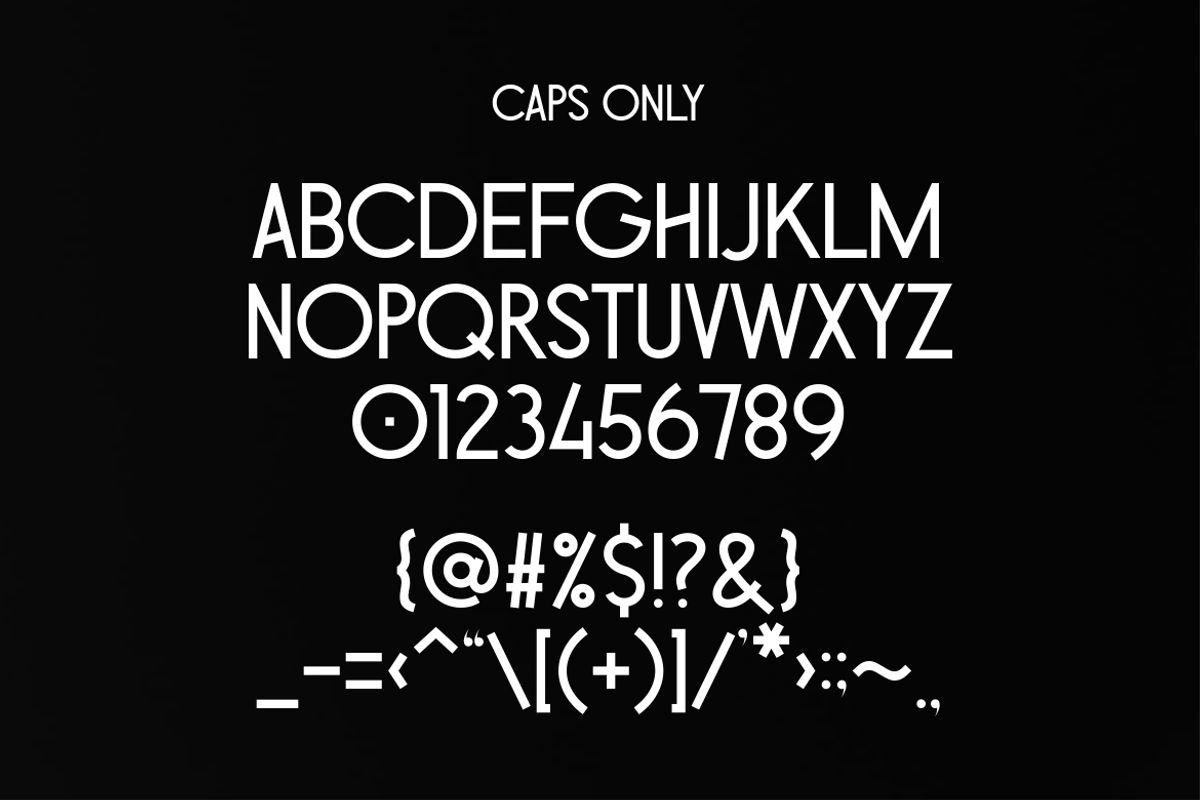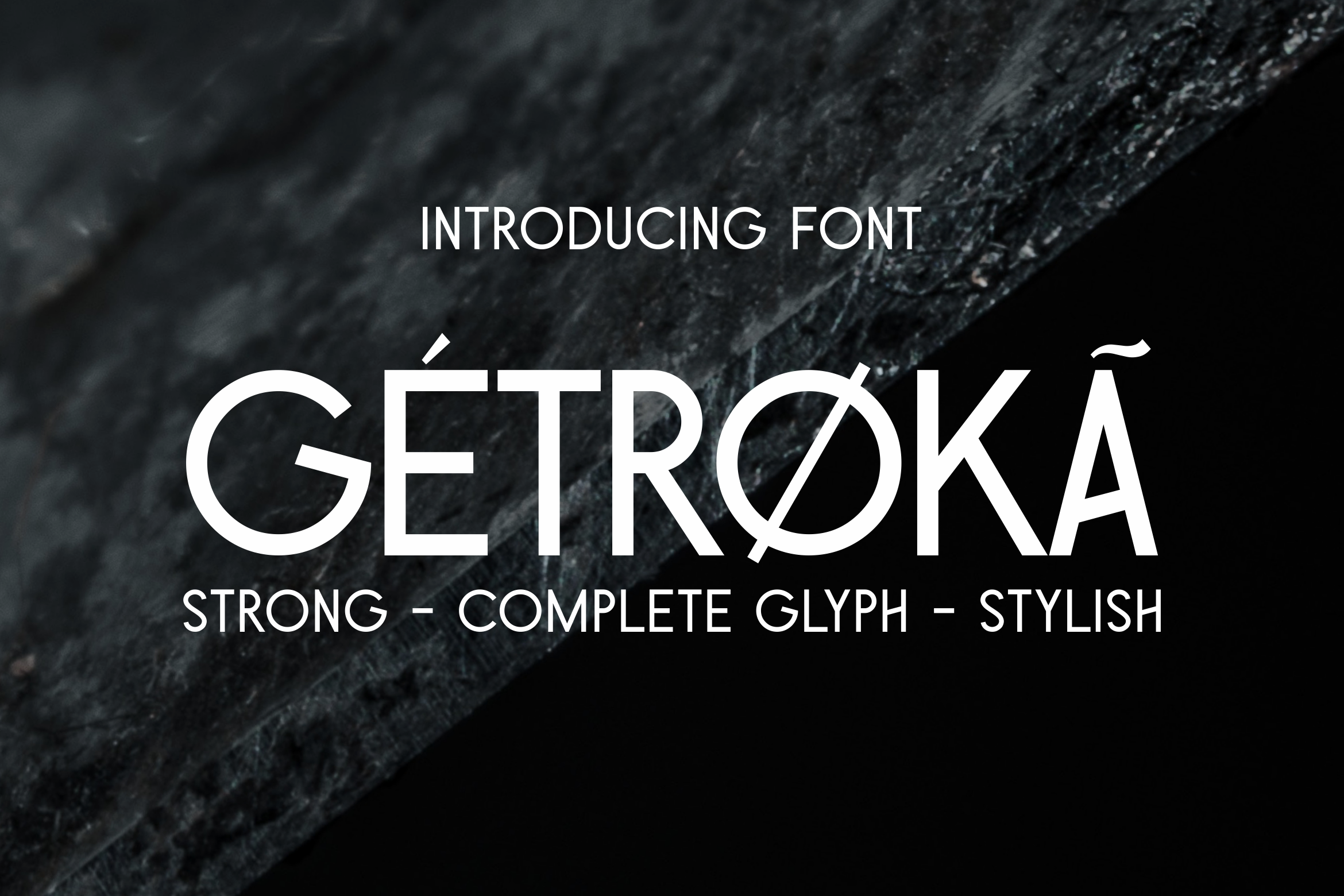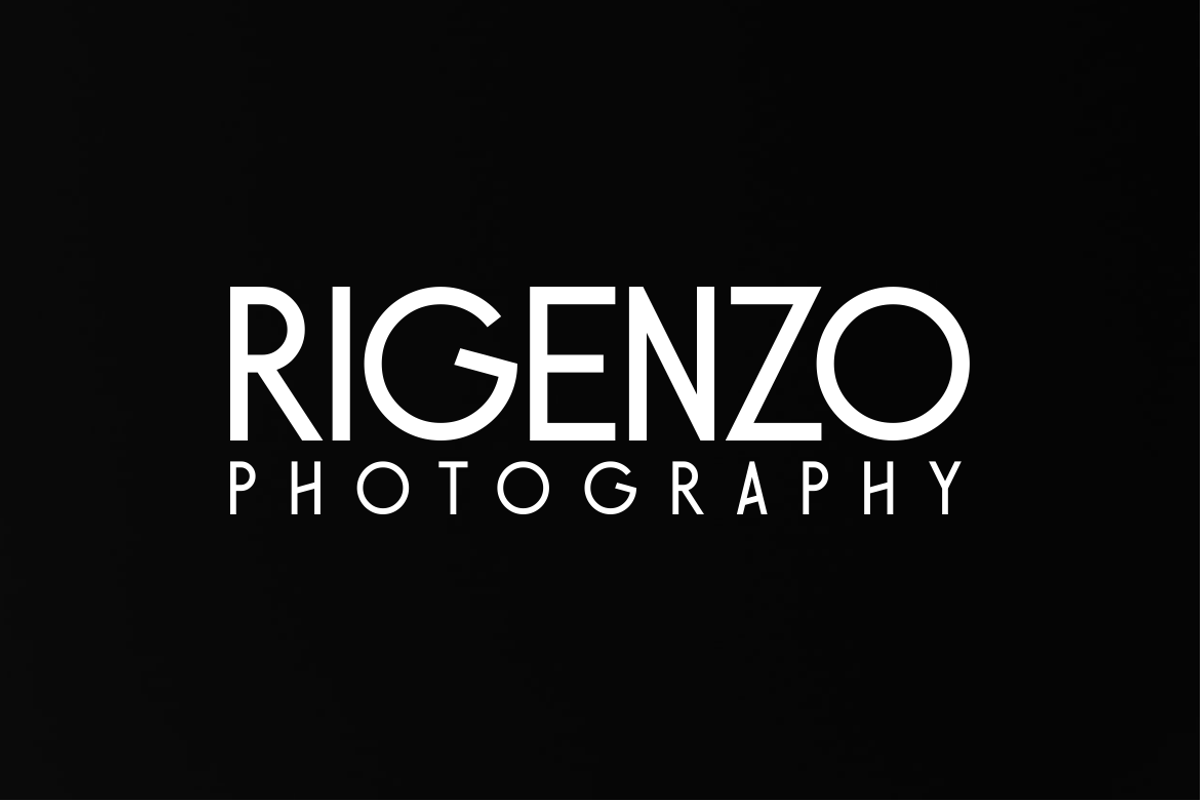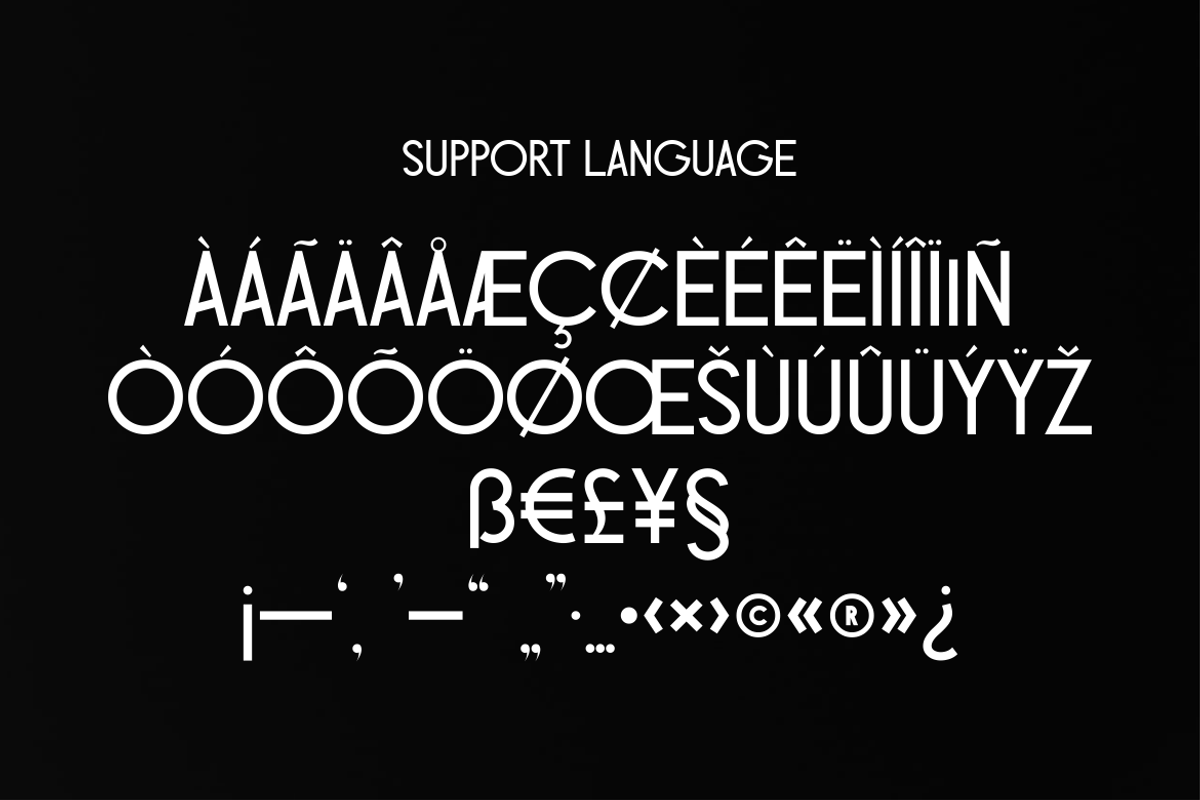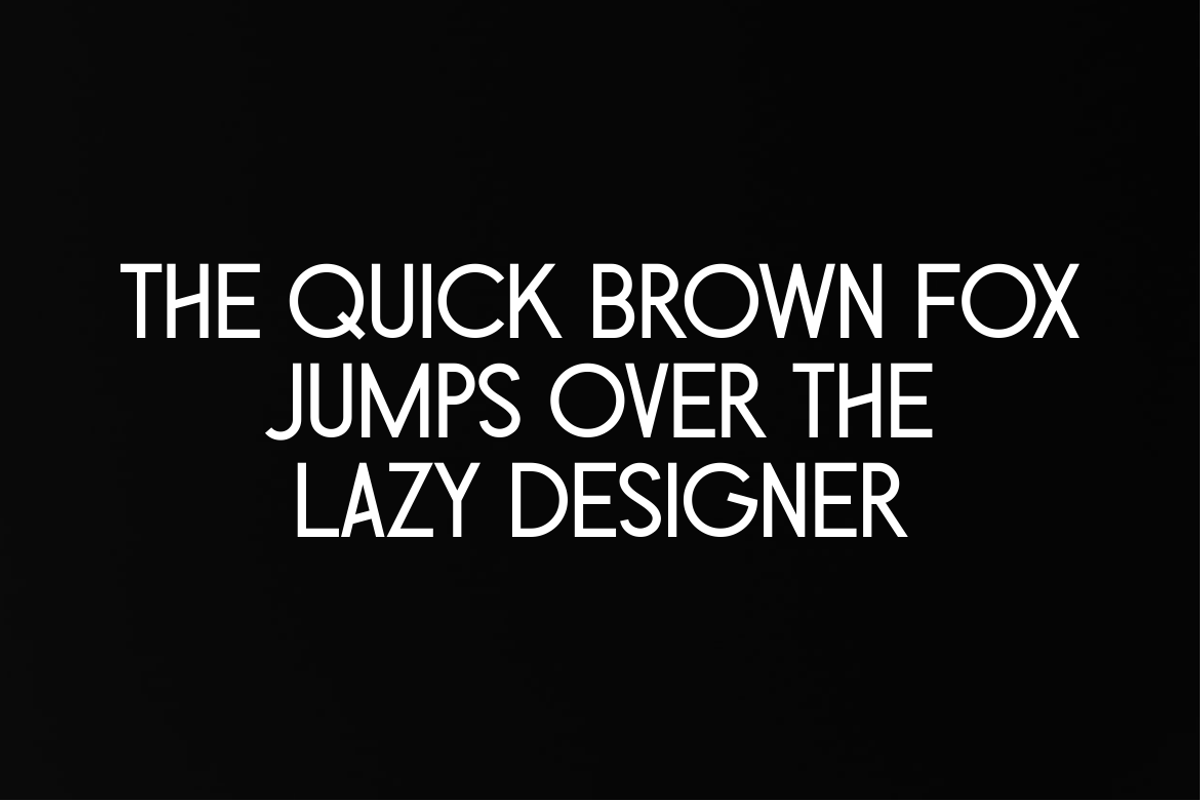
Getroka Sans Epic Edition Font
The font combination of stylish and strong is distributed for large companies, equipped with punctuation marks for several countries and can be modified according to needs.
superiority :
Stylish Strong Character Efficient Kerning Maintaining Geometry under certain circumstances available in .OTF and .TTF formats